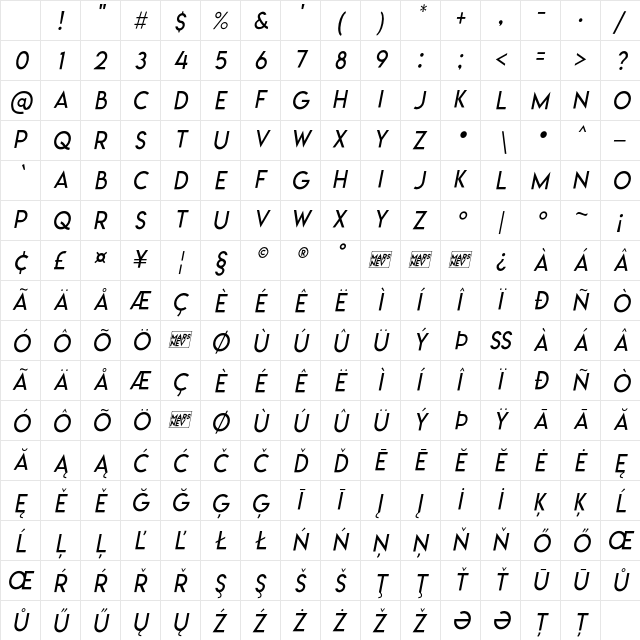
Lemon/Milk light italic
Style: light italic
Lemon/Milk Family
Lemon/Milk light italic
Design Context for Lemon/Milk
Lemon/Milk is a composed and adaptable typeface that performs quietly and consistently across a wide range of design contexts. The slanted form adds forward momentum and visual energy. Its slender proportions lend an understated elegance to any composition.
Pro Tip: Use Lemon/Milk for emphasis, pull quotes, and subheadings where its slanted energy can add rhythm to the layout.